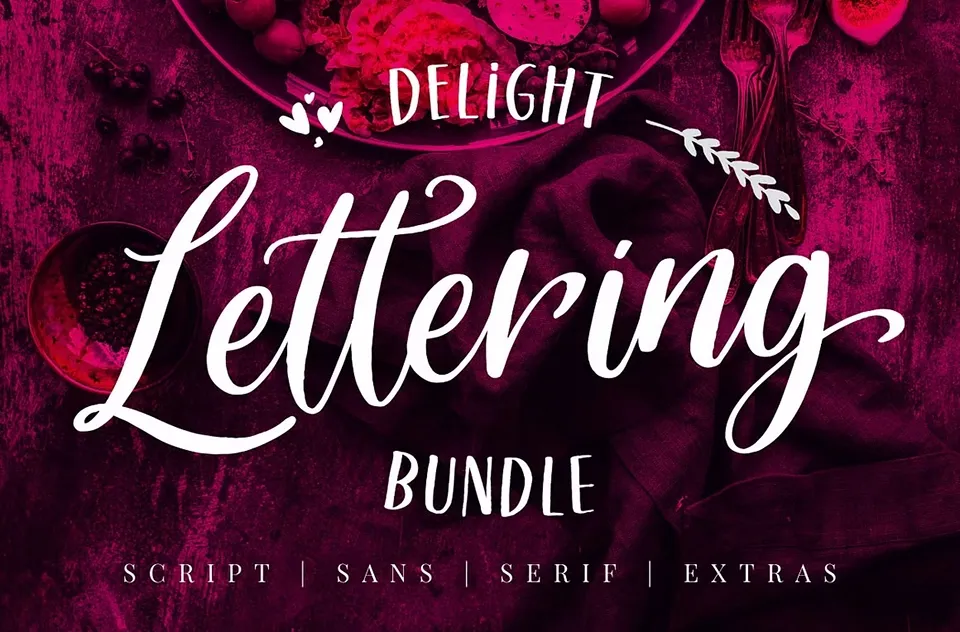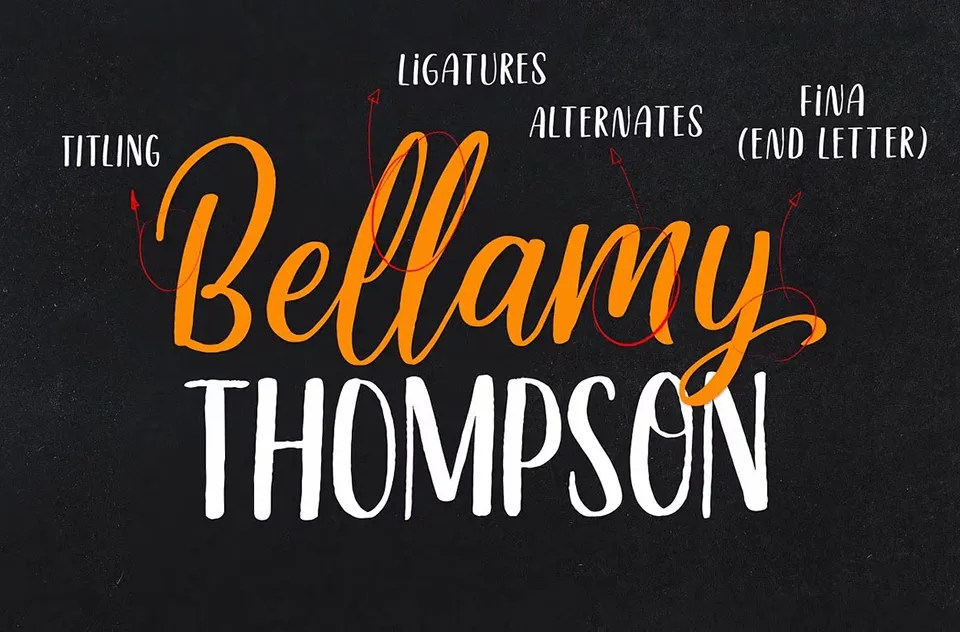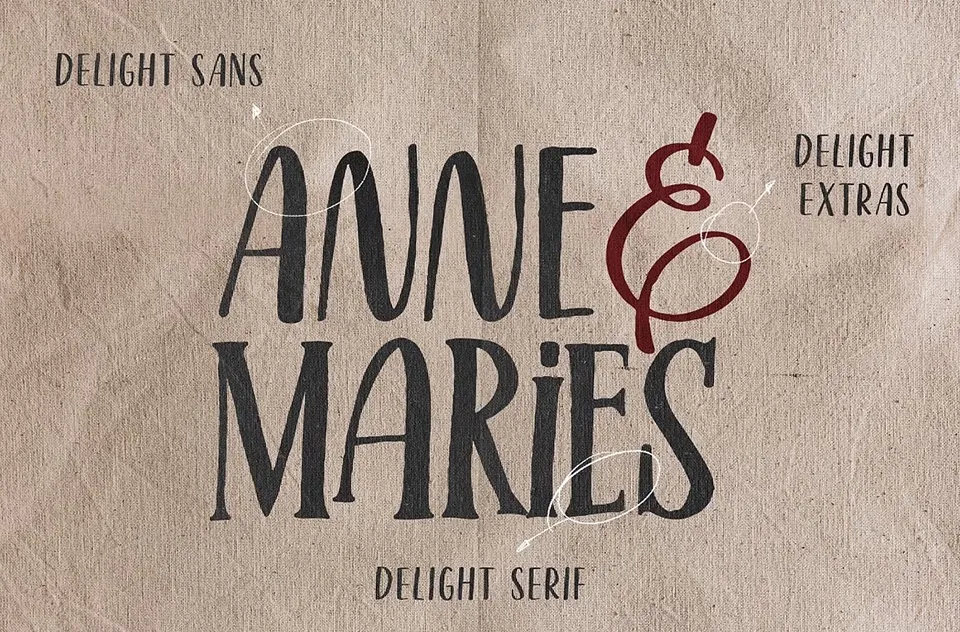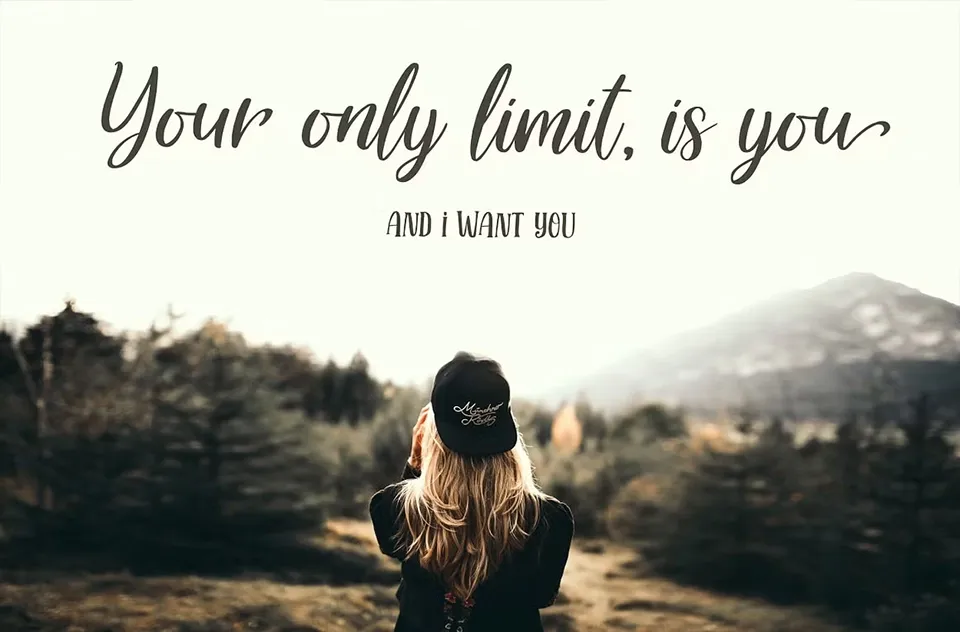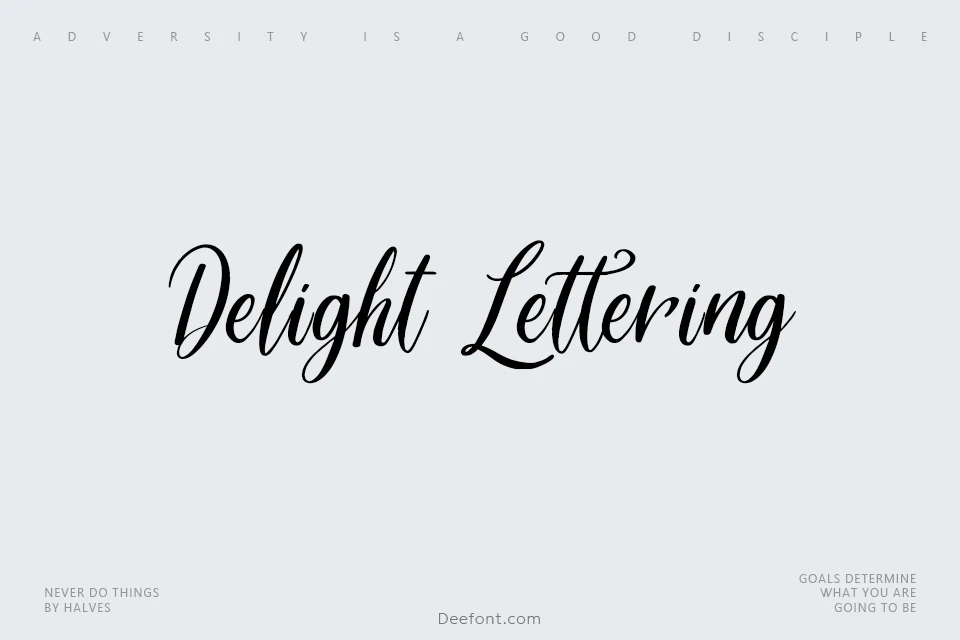
Delight Lettering Font
Delight Lettering Font is a versatile collection designed to add elegance and charm to your projects. This bundle features a beautiful, flowing script font with graceful curves and stylish swashes, perfect for creating a handcrafted, sophisticated look. Alongside the main script, the package includes complementary Sans and Serif fonts, offering flexibility for various design needs. Whether you’re working on invitations, branding, logos, or social media graphics, the Delight Lettering Font Bundle provides the tools to infuse your creations with warmth and personality, making your text truly stand out with its unique and appealing style.